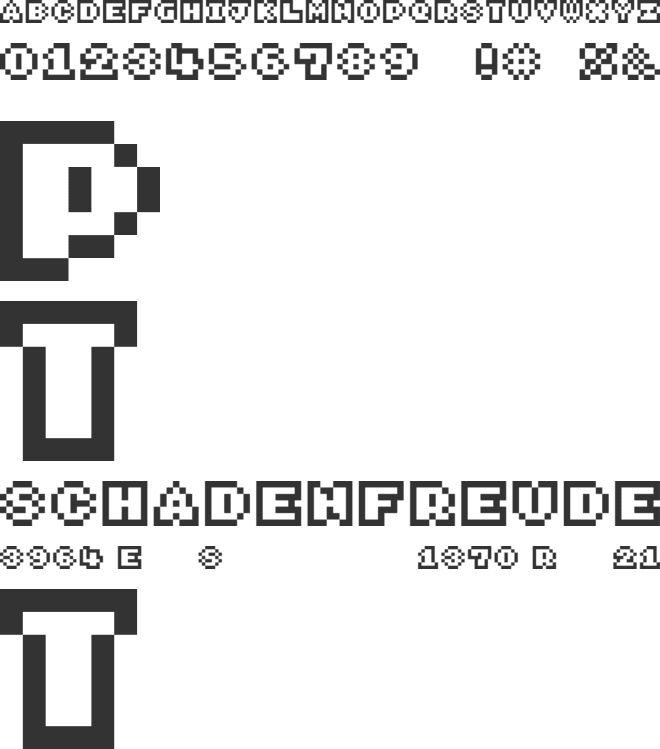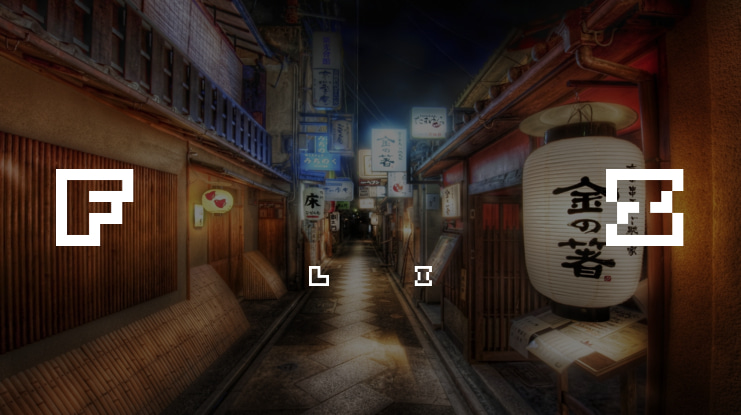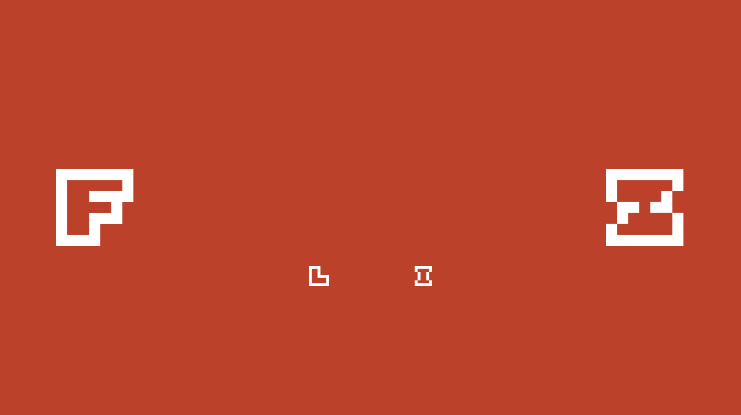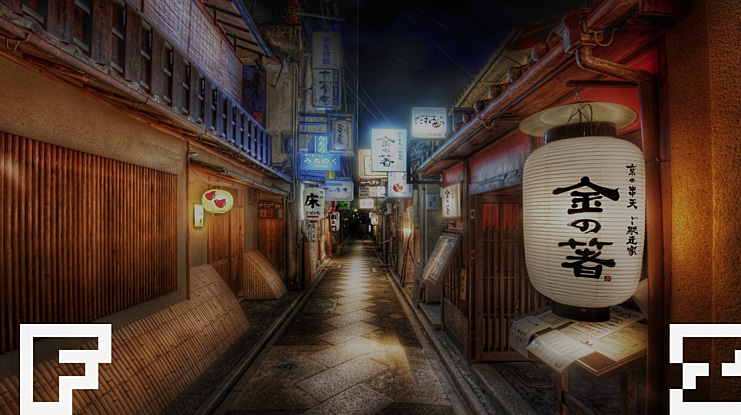
Fantasy Zone Font
An 8-bit video game font resembling the font used for Fantasy Zone, based primarily on a specimen from Arcade Game Typography by Toshi Omagari.